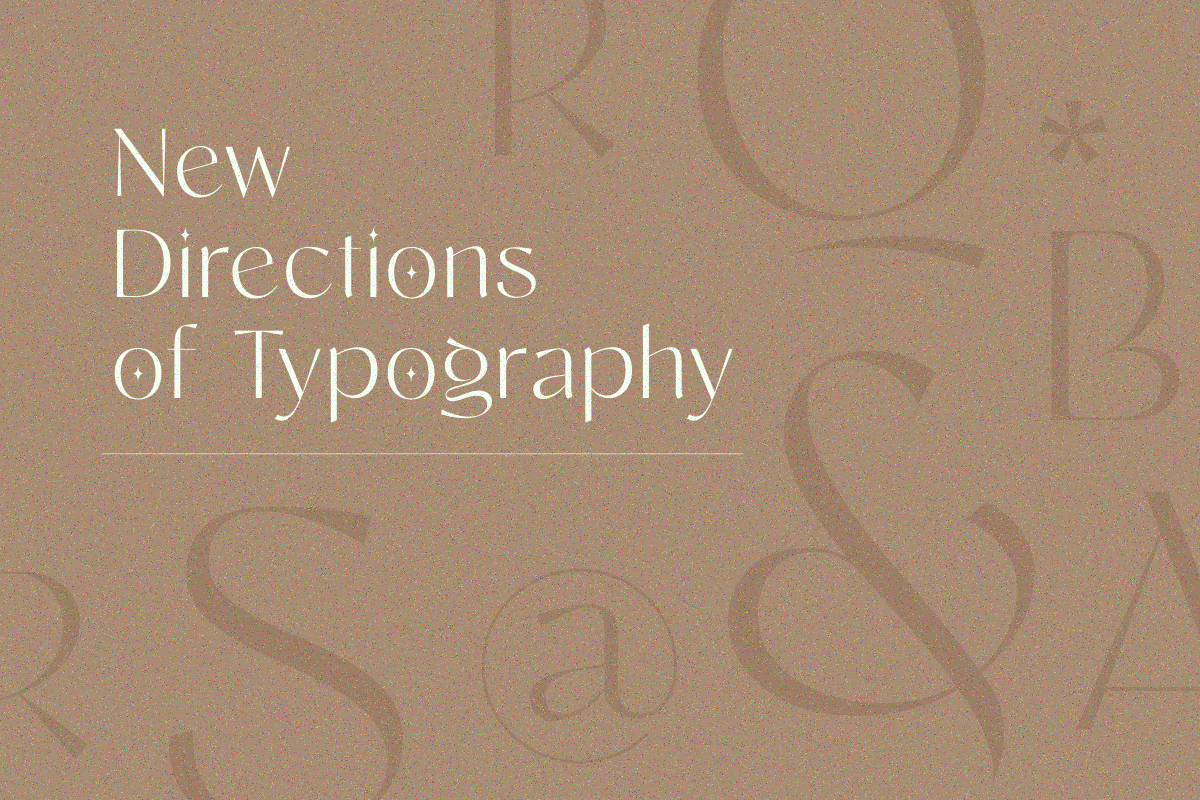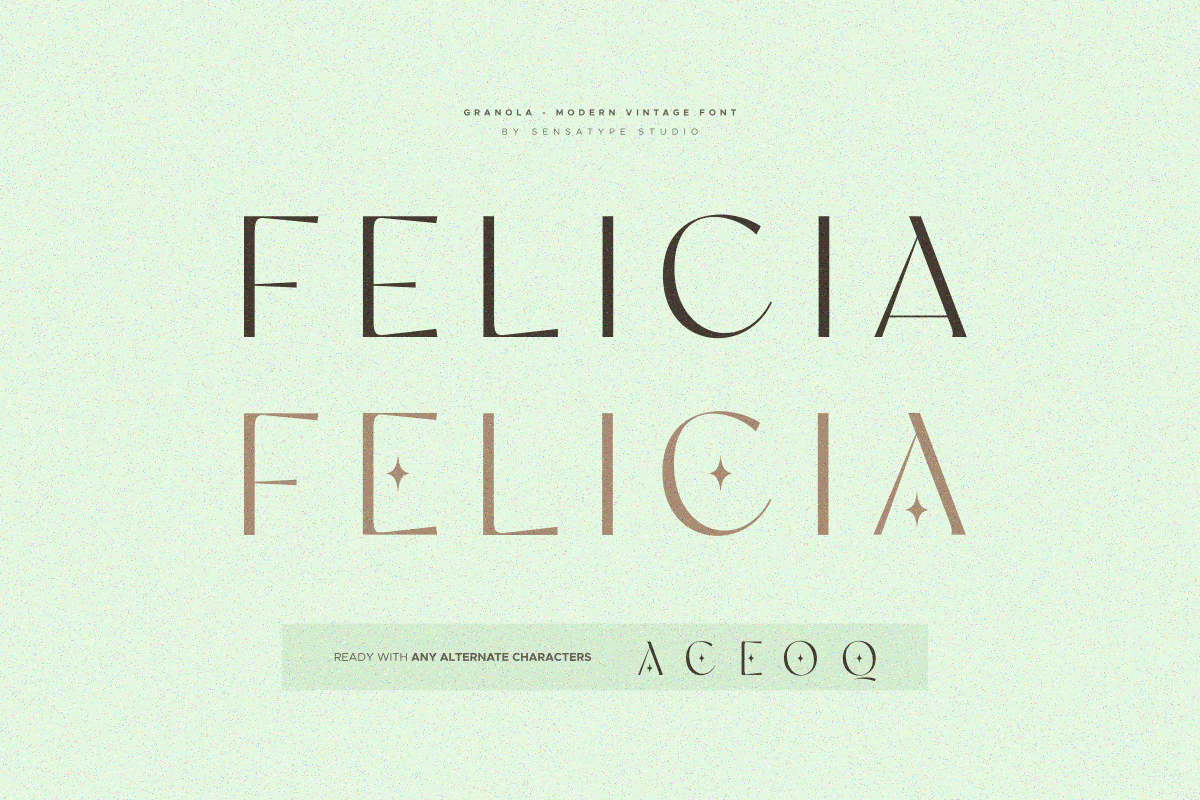
Granola Font
Granola is a collection of modern with cultural display font, that give you unique looks for any branding or logo design needs. It is ready to use on magazines, social media, posters, business card, and many more that need unique touches.
• uppercase and lowercase letters
Granola Modern Vintage Font